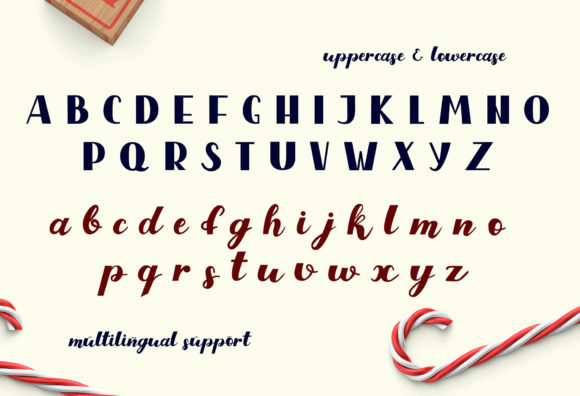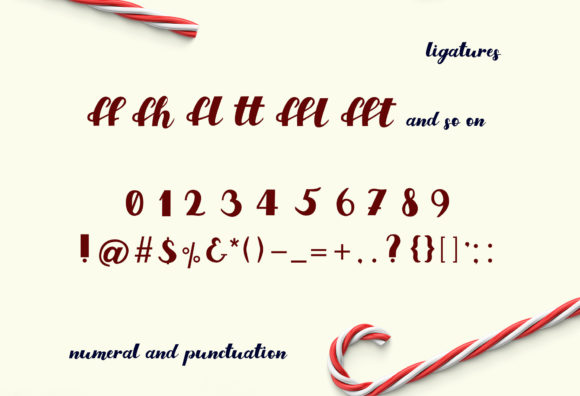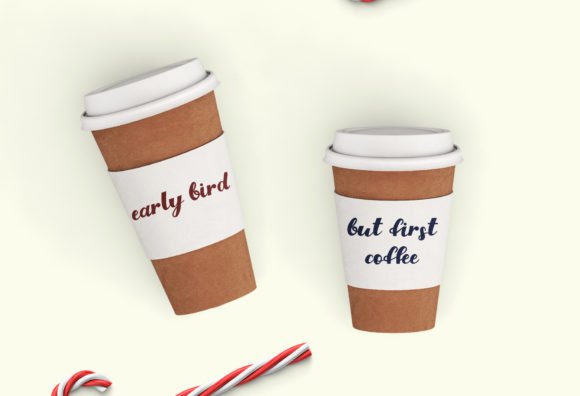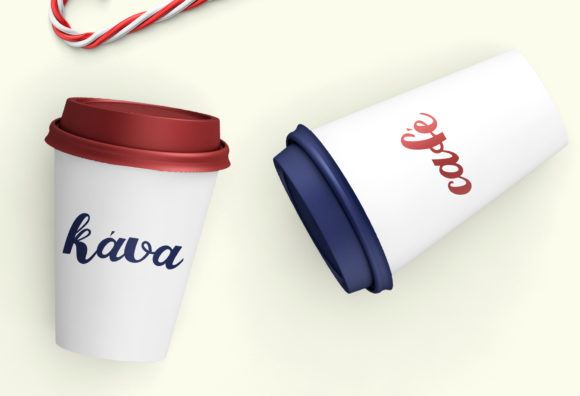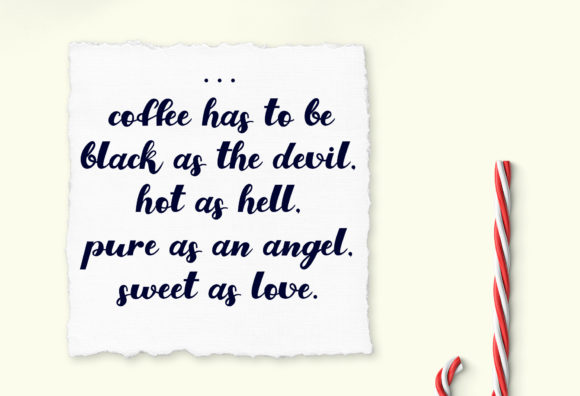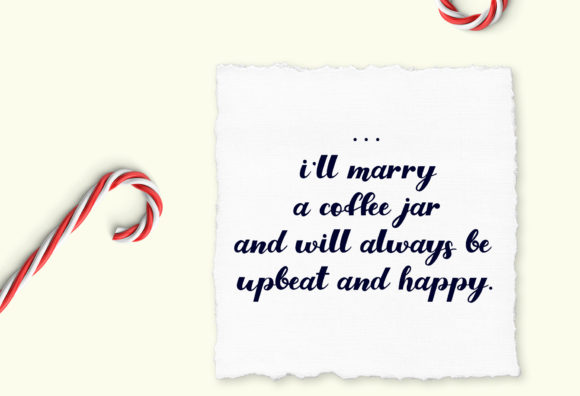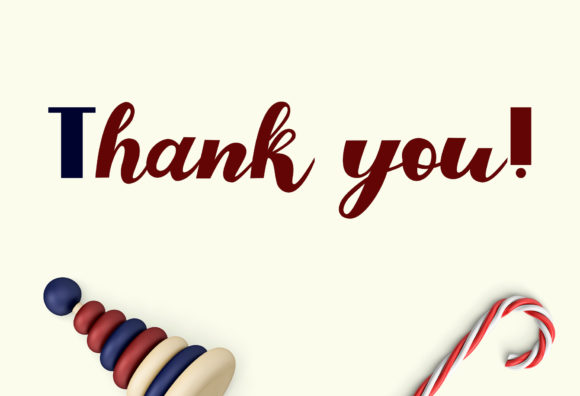
Old Toy Font
About Old Toy Font
Old Toy is a bold script font, designed with a vintage style. This original look will appeal to a wide range of crafty ideas, from letterheads and titles, to stationery.